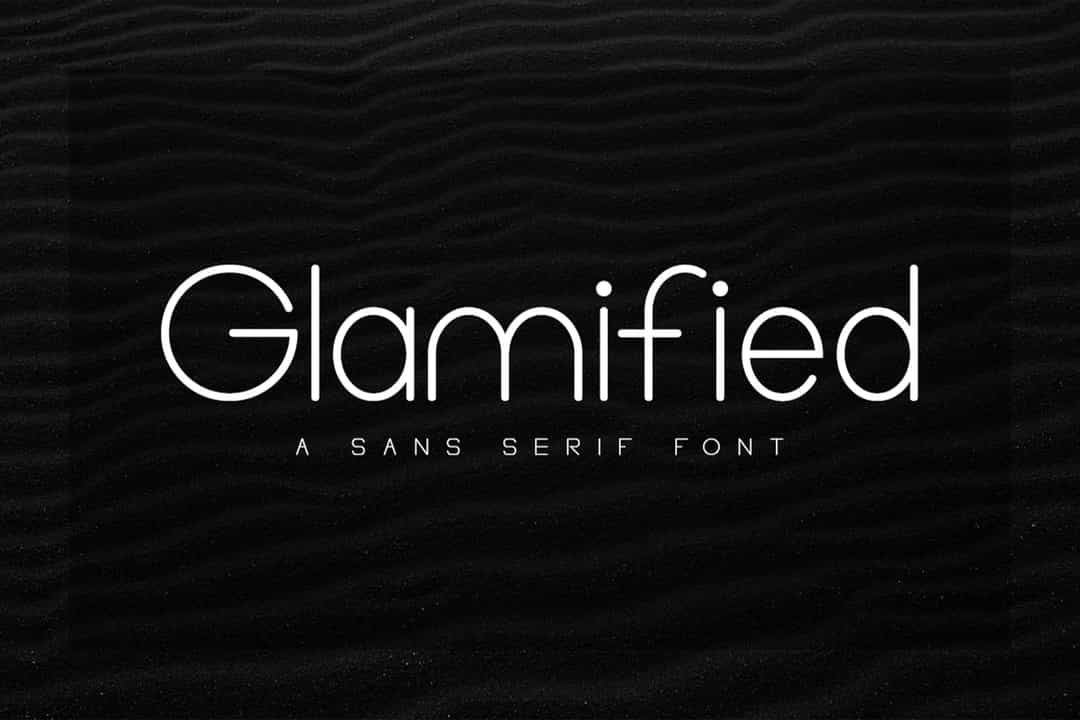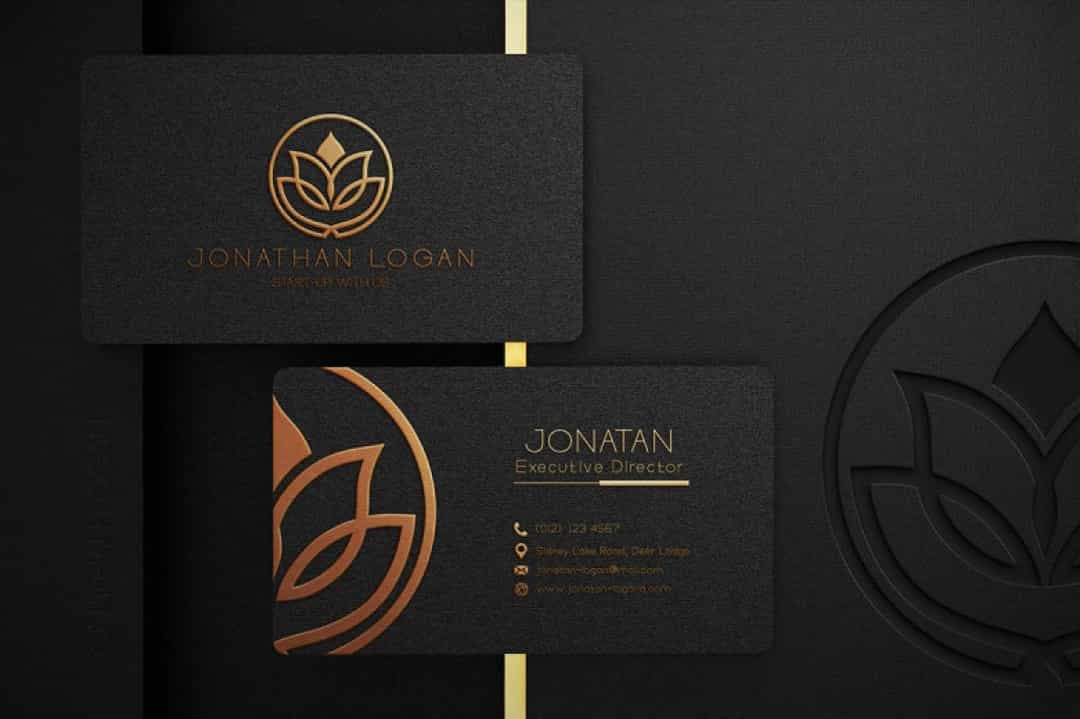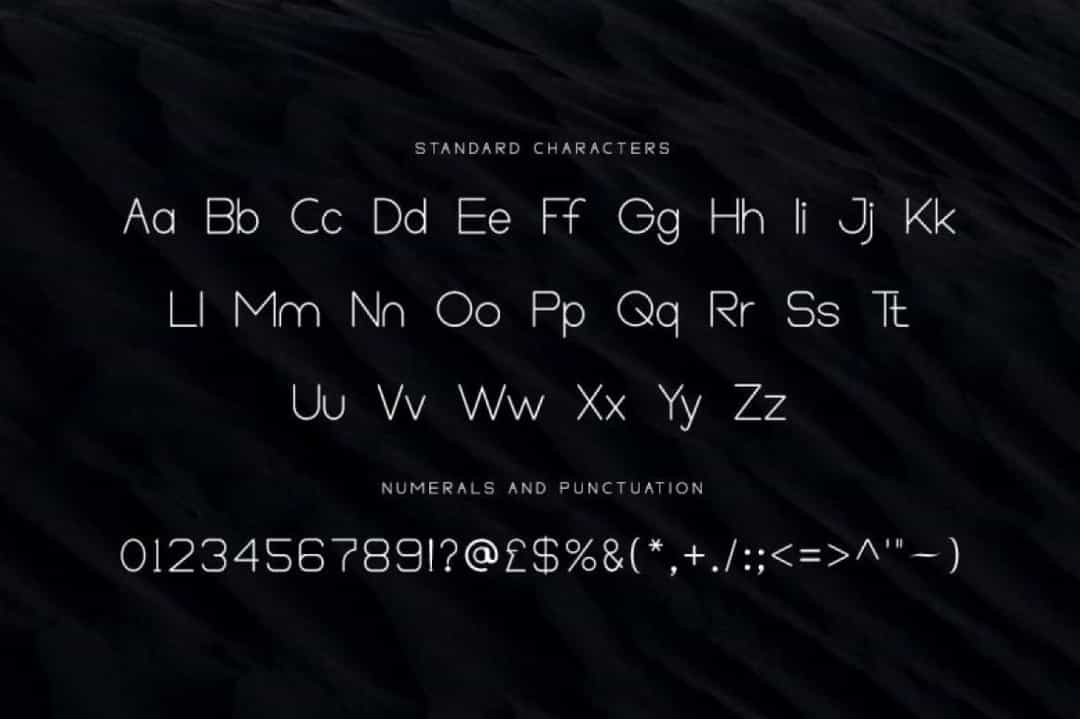
Glamified is an elegant and modern sans serif font that will add sophistication and style to any design you create. Add it to your projects and watch as they stand out!